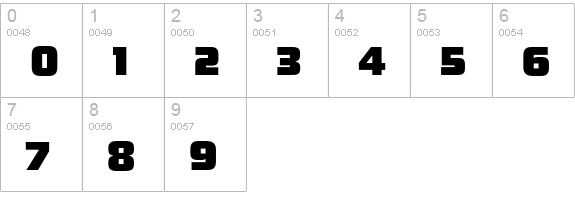
MorganBig Black is a maximum-weight, dramatic variant in the MorganBig typeface family \xE2\x80\x94 well suited to maximum-impact headlines, posters, and packaging.
Introducing MorganBig Black font, a bold and eye-catching typeface designed to make a statement in any design project. This modern and stylish font is perfect for headlines, posters, logos, and more. With its strong and commanding presence, MorganBig Black font demands attention and leaves a lasting impression. The best part? MorganBig Black font is available for free download at FontsMarket.com. Now you can enhance your creative projects with this striking typeface without having to break the bank. Don't miss out on the opportunity to add MorganBig Black font to your font collection today!